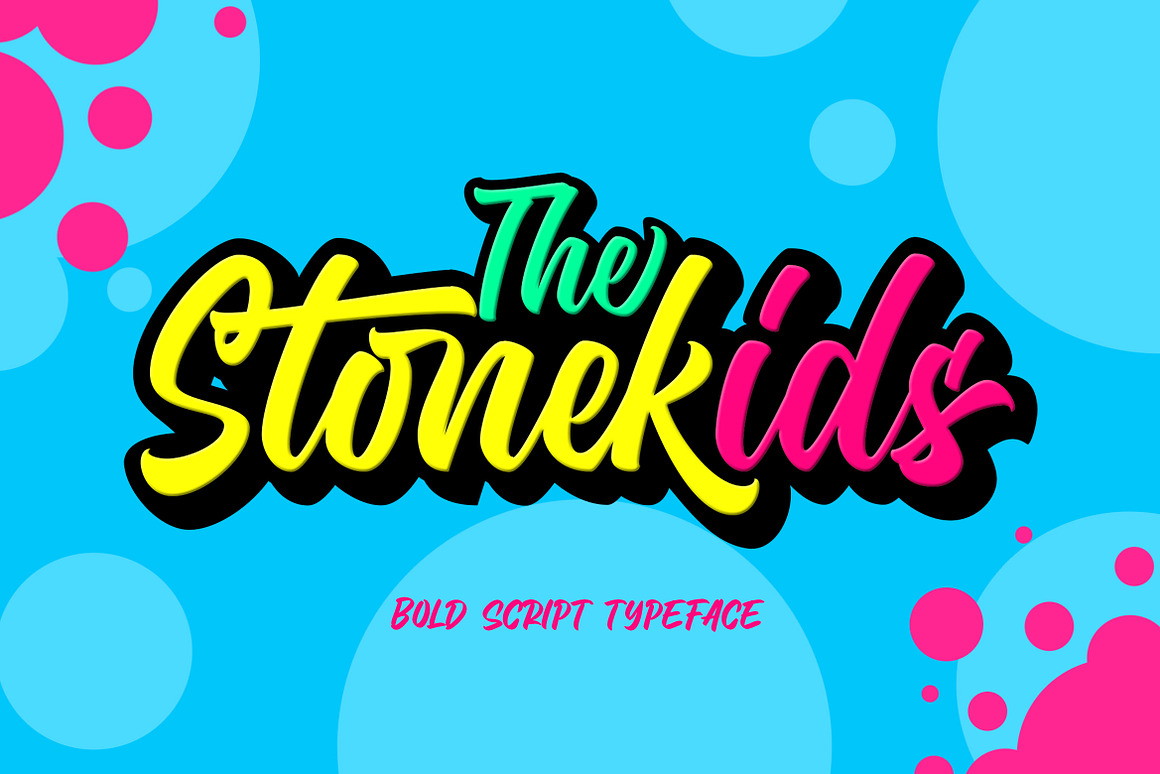
Stonekids - Layered Script Font
Stonekids - Layered Script Font is perfect for children's adventure brands, outdoor education programs, nature-themed playgrounds, family camping gear, kids' outdoor clothing, adventure summer camps, natural toy packaging, wilderness education materials, family hiking guides, and authentic outdoor childhood experiences.
What makes Stonekids - Layered Script Font exciting is its adventurous spirit that captures the natural wonder of childhood exploration and outdoor discovery through playfully crafted letterforms. This dynamic typeface combines rugged outdoor aesthetics with child-friendly appeal, creating a personality that communicates adventure, safety, and genuine outdoor fun. The font's nature-inspired character and layered design make it perfect for brands seeking to inspire children's connection with nature and promote healthy outdoor activities in today's digital world.
The Stonekids - Layered Script Font family includes Regular, Bold, Light, Medium, Adventure, Natural, Condensed, and Layered variants. Each weight maintains the font's outdoor character while providing comprehensive typographic flexibility for adventure brand identity systems and nature-themed design applications across diverse outdoor education platforms.
Whether you're developing outdoor education identities, creating adventure marketing materials, designing nature-themed children's products, or building family outdoor campaigns, Stonekids - Layered Script Font delivers unmatched adventure appeal and outdoor sophistication. Its playful presence makes it perfect for outdoor gear companies, nature education centers, adventure camps, and family brands seeking authentic outdoor childhood representation.
The font's layered proportions and natural details create an inspiring reading experience that encourages children to explore forests, climb rocks, and discover natural wonders. Each letterform has been carefully crafted to evoke outdoor adventure while maintaining excellent safety-conscious readability across modern family applications.
This versatile typeface excels in outdoor environments, offering designers the adventure spirit needed for comprehensive nature brand communication strategies. The extensive character set includes adventure alternates, natural ligatures, and outdoor symbols for family adventure market positioning and nature education brand storytelling.
Embrace the power of natural design that celebrates outdoor childhood and authentic wilderness exploration experiences.